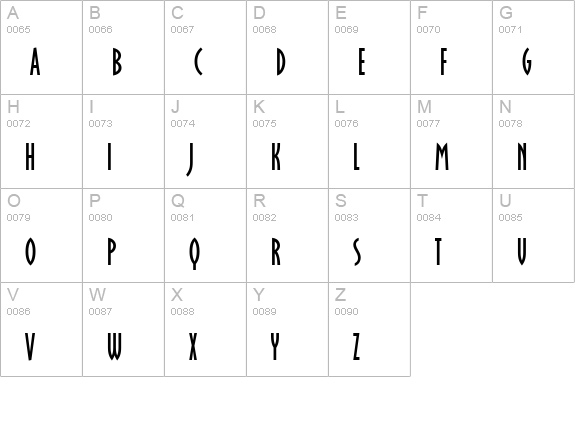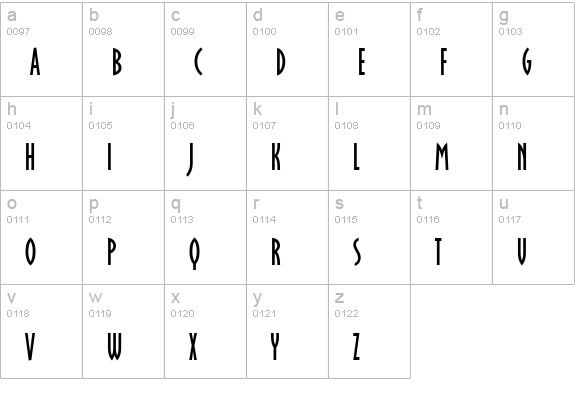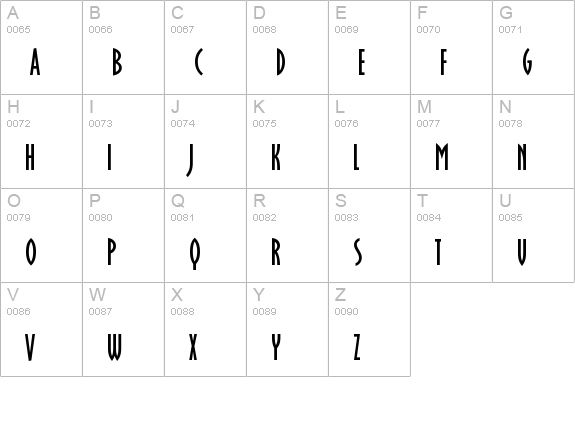
URWOklahomaD Font Details
URWOklahomaD is a stunning and versatile font that effortlessly combines modernity with a touch of classic elegance. Its clean lines and well-balanced proportions make it suitable for a wide range of design projects, from branding and advertising to packaging and web design. This font exudes a sense of sophistication and professionalism, making it perfect for creating eye-catching logos, headlines, and captions. With its unique character and smooth curves, URWOklahomaD brings a sense of harmony and balance to any typographic composition. One of the most appealing aspects of URWOklahomaD is that it is available for free. Yes, you read that right! This amazing font can be downloaded at absolutely no cost from FontsMarket.com. Whether you are a professional designer or a hobbyist, you can easily access this font and use it to elevate your creative projects without spending a dime. URWOklahomaD offers a wide range of weights and styles, allowing you to experiment and find the perfect fit for your design needs. From light and airy to bold and impactful, this font has it all. Its versatility and flexibility make it an excellent choice for both print and digital media, ensuring that your message will be conveyed with utmost clarity and visual appeal. So why wait? Don't miss out on this fantastic opportunity to enhance your designs with URWOklahomaD. Visit FontsMarket.com today and explore the world of limitless possibilities that this font has to offer. Download it for free and let your creativity soar to new heights!